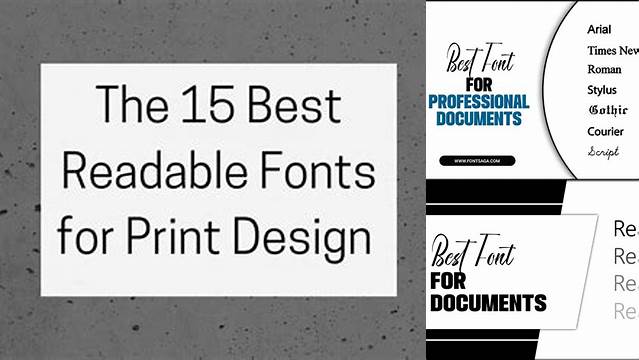
Top Fonts For Word Documents: Enhance Readability & Style
Choosing the right font for your Word documents is crucial for readability and overall impact. Let's dive into the best fonts to make your documents shine!
1. Best Overall Fonts for Word
When it comes to selecting the best fonts for Word, a few consistently stand out due to their readability, versatility, and professional appearance. These fonts are suitable for a wide range of documents, from formal reports to casual letters. Let's explore some top contenders. First, we have Times New Roman, a classic serif font that has been a standard for decades. Its clear, legible letterforms make it ideal for body text, ensuring readers can easily follow the content. Next up is Arial, a widely used sans-serif font known for its clean and modern look. Arial is a great choice for headings and short blocks of text, providing a crisp and contemporary feel. Then there's Calibri, which replaced Times New Roman as the default font in Microsoft Word. Calibri is another excellent sans-serif option, offering a softer and more rounded appearance that many find appealing. Each of these fonts contributes to creating documents that are not only readable but also visually engaging and professional. They serve as a reliable foundation for various writing needs, ensuring your message is conveyed effectively and stylishly. Remember, the best fonts for Word are the ones that enhance your document's readability and overall aesthetic, so choose wisely!
2. Professional Fonts for Resumes
Selecting the best fonts for Word documents, especially resumes, is critical because your resume is often the first impression you make on potential employers. A well-chosen font can convey professionalism, attention to detail, and clarity. For a resume, readability is paramount; recruiters and hiring managers should be able to quickly scan your qualifications without straining their eyes. Some top professional fonts for resumes include Garamond, known for its elegant and classic appearance, making it a sophisticated choice. Another strong contender is Helvetica, a clean and minimalist sans-serif font that exudes modernity and simplicity. Additionally, consider Cambria, a serif font designed specifically for on-screen reading, offering excellent clarity and a polished look. Avoid overly decorative or unconventional fonts that can distract from the content. Consistency is also key; stick to one or two fonts throughout your resume to maintain a cohesive and professional aesthetic. The right font choice can significantly enhance the overall impact of your resume, helping you stand out in a competitive job market. Remember, the best fonts for Word for a resume are those that combine readability with a touch of professional elegance.
3. Modern Fonts for Business Documents
In the realm of business, the best fonts for Word documents often lean towards modern aesthetics to convey innovation and forward-thinking. Modern fonts can make your reports, presentations, and memos look current and professional, capturing the attention of your audience. One standout modern font is Open Sans, a humanist sans-serif font designed with readability in mind. Its clean lines and open forms make it easy to read both on screen and in print. Another excellent choice is Lato, a stylish sans-serif font that combines warmth and clarity. Lato's semi-rounded details give it a friendly yet professional feel, perfect for business communications. Additionally, consider Montserrat, a geometric sans-serif font that exudes confidence and modernity. Its strong, clean lines make it ideal for headings and titles. When selecting a modern font for business documents, it's important to strike a balance between style and readability. Avoid fonts that are too trendy or difficult to read, as they can detract from your message. Instead, opt for fonts that enhance clarity and convey a sense of professionalism and innovation. Choosing the best fonts for Word in a business context means selecting typefaces that reflect your company's brand and values while ensuring your documents are easily accessible and visually appealing.
4. Formal Fonts for Legal Documents
When creating legal documents, selecting the best fonts for Word is crucial for maintaining professionalism, clarity, and authority. The fonts you choose should convey seriousness and trustworthiness, ensuring that the document is taken seriously. Classic serif fonts are generally preferred in the legal field due to their traditional and formal appearance. Times New Roman remains a popular choice for its readability and widespread recognition. Another excellent option is Garamond, known for its elegant and refined letterforms, which lend a sense of sophistication to legal texts. Additionally, consider Book Antiqua, a serif font that offers a slightly softer and more approachable feel while still maintaining a formal tone. When selecting fonts for legal documents, avoid using overly stylized or decorative fonts, as they can appear unprofessional and undermine the document's credibility. Consistency is also essential; use the same font throughout the entire document to maintain a cohesive and polished appearance. The goal is to choose fonts that enhance readability and convey a sense of authority, ensuring that your legal documents are clear, professional, and taken seriously. Therefore, when considering the best fonts for Word in a legal setting, prioritize classic serif fonts that have a proven track record of reliability and readability.
5. Readable Fonts for Long Documents
For lengthy documents, selecting the best fonts for Word is paramount to ensure readers can comfortably navigate through the text without experiencing eye strain. Readability is key, as readers need to maintain focus and comprehension over extended periods. Several fonts excel in their ability to enhance readability in long documents. One standout is Georgia, a serif font specifically designed for on-screen reading. Its generous letter spacing and clear letterforms make it easy on the eyes, even after prolonged reading. Another excellent choice is Palatino, a humanist serif font known for its elegant appearance and excellent readability. Palatino's well-balanced letterforms and subtle serifs make it a pleasure to read, reducing fatigue. Additionally, consider Verdana, a sans-serif font designed with readability in mind. Its wide letterforms and ample spacing make it easy to read, especially in smaller sizes. When choosing fonts for long documents, avoid using overly condensed or stylized fonts, as they can be difficult to read and cause eye strain. Instead, opt for fonts with clear letterforms, generous spacing, and a balanced appearance. By prioritizing readability, you can ensure that your long documents are accessible and engaging for your audience. Remember, the best fonts for Word in this context are those that prioritize reader comfort and comprehension.
6. Sans-Serif Fonts for Digital Reading
When it comes to digital reading, choosing the best fonts for Word documents often means opting for sans-serif fonts. These fonts typically have a cleaner, more modern look that translates well to screens, enhancing readability and reducing eye strain. Sans-serif fonts lack the small decorative strokes (serifs) found in traditional fonts, making them appear less cluttered and easier to read on digital devices. One popular sans-serif font for digital reading is Arial, known for its simplicity and clarity. Arial's clean lines and straightforward letterforms make it a versatile choice for various types of content. Another excellent option is Helvetica, a widely used sans-serif font with a minimalist design. Helvetica's neutral appearance and excellent readability make it a favorite among designers and readers alike. Additionally, consider Open Sans, a humanist sans-serif font designed specifically for on-screen reading. Its open forms and clean lines make it easy on the eyes, even after extended reading sessions. When selecting sans-serif fonts for digital reading, it's important to consider factors such as screen resolution, font size, and contrast. Opt for fonts that are clear, legible, and easy to read on various devices. By choosing the best fonts for Word tailored to digital reading, you can create documents that are visually appealing and highly readable.
7. Serif Fonts for Print Documents
For print documents, serif fonts often stand out as the best fonts for Word because they enhance readability and provide a traditional, polished look. Serif fonts have small decorative strokes (serifs) at the end of each letter, which can help guide the eye and improve reading flow, especially in printed materials. One classic serif font for print documents is Times New Roman, known for its timeless appearance and excellent readability. Times New Roman's well-defined serifs and balanced letterforms make it a reliable choice for various types of printed content. Another excellent option is Garamond, a sophisticated serif font with elegant letterforms. Garamond's refined appearance and excellent readability make it a favorite among publishers and designers. Additionally, consider Georgia, a serif font specifically designed for on-screen reading but also performs well in print. Its generous letter spacing and clear letterforms make it easy on the eyes, even in smaller sizes. When selecting serif fonts for print documents, it's important to consider factors such as paper quality, font size, and printing resolution. Opt for fonts that are clear, legible, and visually appealing in printed form. The best fonts for Word in this context are those that combine readability with a touch of elegance and professionalism, ensuring your print documents make a strong impression.
8. Best Font Size for Word Documents
Choosing the best fonts for Word also involves considering the optimal font size to ensure readability and comfort. The right font size can make a significant difference in how easily your document can be read and understood. For most standard documents, a font size of 12 points is generally recommended. This size strikes a good balance between readability and space efficiency, making it suitable for a wide range of content. However, depending on the font you choose, you may need to adjust the size slightly. For example, some fonts may appear larger or smaller than others at the same point size. When selecting font sizes, it's also important to consider your target audience. If you're writing for an audience with visual impairments, you may need to increase the font size to improve accessibility. Additionally, consider the overall layout of your document. If you have a lot of text, you may want to use a slightly smaller font size to fit more content on each page. Conversely, if you have a lot of white space, you may want to use a larger font size to fill the space and improve readability. The best fonts for Word, when paired with the right size, create a comfortable reading experience for your audience.
9. Fonts for Academic Papers
When it comes to academic papers, selecting the best fonts for Word is crucial for maintaining professionalism and adhering to academic standards. Certain fonts are preferred in academic settings due to their readability, clarity, and formal appearance. Times New Roman is often considered the standard font for academic papers. Its classic serif design and excellent readability make it a reliable choice for body text. Another popular option is Garamond, known for its elegant and refined letterforms. Garamond's sophisticated appearance lends a sense of professionalism to academic writing. Additionally, consider Calibri, a sans-serif font that has become increasingly popular in academic circles. Calibri's clean and modern look makes it a versatile choice for headings and titles. When selecting fonts for academic papers, it's important to adhere to the specific guidelines provided by your institution or publication. Some may have specific font requirements, while others may allow for more flexibility. Consistency is also key; use the same font throughout your paper to maintain a cohesive and polished appearance. By choosing the best fonts for Word for academic papers, you can ensure that your work is presented in a professional and readable manner, enhancing its credibility and impact.
10. Creative Fonts for Word Documents
If you're looking to add a touch of creativity to your Word documents, choosing the best fonts for Word can make all the difference. Creative fonts can help you express your personality, stand out from the crowd, and add visual interest to your documents. However, it's important to use creative fonts sparingly and judiciously, as they can also detract from readability if overused. One popular creative font is Brush Script MT, known for its flowing, handwritten style. Brush Script MT can add a personal and informal touch to invitations, cards, and other documents. Another interesting option is Comic Sans MS, a whimsical sans-serif font that is often used for informal communications. While Comic Sans MS is often criticized for its overuse, it can be effective in certain contexts. Additionally, consider Impact, a bold and attention-grabbing sans-serif font that is ideal for headlines and titles. When selecting creative fonts for Word documents, it's important to consider your audience and the purpose of your document. Avoid using fonts that are difficult to read or that clash with the overall tone of your content. The best fonts for Word in this context are those that enhance your document's visual appeal without sacrificing readability or professionalism.
11. Combining Fonts Effectively
Part of selecting the best fonts for Word involves knowing how to combine them effectively. Combining fonts well can elevate your document's design and readability, while poor combinations can create a cluttered or unprofessional look. A general rule of thumb is to choose one font for headings and another for body text. This creates visual hierarchy and helps readers navigate the document more easily. When combining fonts, it's important to consider their contrast and compatibility. Choose fonts that complement each other in terms of style, weight, and spacing. For example, you might pair a serif font like Garamond with a sans-serif font like Arial. Alternatively, you could pair two sans-serif fonts with different weights and styles. Avoid combining fonts that are too similar, as this can create a monotonous look. Also, avoid combining fonts that clash or compete with each other, as this can be distracting and unprofessional. The best fonts for Word are those that work together harmoniously to create a visually appealing and readable document.
12. Fonts for Different Types of Documents
The best fonts for Word can vary depending on the type of document you're creating. Different documents have different purposes and require different font styles to effectively convey their message. For example, formal documents like business reports and legal contracts typically require professional and conservative fonts. Times New Roman, Arial, and Garamond are all good choices for these types of documents. On the other hand, creative documents like brochures and newsletters may benefit from more expressive and decorative fonts. Brush Script MT, Comic Sans MS, and Impact can add visual interest to these types of documents. Academic papers and essays typically require fonts that are clear, readable, and adhere to academic standards. Times New Roman, Garamond, and Calibri are all popular choices for academic writing. When selecting fonts for different types of documents, it's important to consider your audience, the purpose of your document, and the overall tone you want to convey. The best fonts for Word are those that are appropriate for the specific context of your document.
13. Default Fonts in Microsoft Word
Understanding the default fonts in Microsoft Word is crucial for selecting the best fonts for Word documents. The default font is the typeface that Word automatically uses when you start a new document. Over the years, Microsoft has changed the default font several times, reflecting evolving design trends and user preferences. In older versions of Word, the default font was Times New Roman, a classic serif font known for its readability and formal appearance. Later, Microsoft switched to Arial, a clean and modern sans-serif font. More recently, Microsoft has adopted Calibri as the default font in Word. Calibri is a sans-serif font with a softer, more rounded appearance than Arial. While the default font can be a convenient starting point, it's important to choose fonts that are appropriate for your specific document and audience. You can easily change the default font in Word by going to the Format menu and selecting Font. From there, you can choose any font installed on your computer and set it as the new default. The best fonts for Word are not necessarily the default ones, but those that best suit the purpose and style of your document.
14. How to Change Fonts in Word
Knowing how to change fonts in Word is essential for selecting the best fonts for Word documents and customizing their appearance. Microsoft Word offers several ways to change fonts, allowing you to easily adjust the typeface, size, and style of your text. One way to change fonts is to use the Font menu on the Home tab. Simply select the text you want to change, then click on the dropdown menu in the Font section and choose a new font from the list. You can also change the font size, style (bold, italic, underline), and color using the options in the Font menu. Another way to change fonts is to use the Format menu. Select the text you want to change, then click on the Format menu and select Font. This will open the Font dialog box, where you can choose a new font, size, style, and other options. You can also use the Format Painter tool to copy the formatting from one section of text to another. Simply select the text with the formatting you want to copy, click on the Format Painter button, then select the text you want to apply the formatting to. By mastering these techniques, you can easily experiment with different fonts and find the best fonts for Word to enhance your documents.
15. Downloading and Installing New Fonts
To truly expand your font options and find the best fonts for Word, you'll often need to download and install new fonts. Fortunately, this process is relatively straightforward on most operating systems. There are numerous websites where you can download fonts, both free and paid. Some popular font websites include Google Fonts, Adobe Fonts, and Font Squirrel. When downloading fonts, make sure to choose a reputable website to avoid downloading malware or viruses. Once you've downloaded a font, you'll need to install it on your computer. On Windows, you can install a font by right-clicking on the font file and selecting Install. Alternatively, you can copy the font file to the Fonts folder in the Windows directory. On macOS, you can install a font by double-clicking on the font file and selecting Install Font. Once the font is installed, it will be available in Microsoft Word and other applications. Keep in mind that some fonts may have licensing restrictions, so be sure to read the terms of use before using them in your documents. By downloading and installing new fonts, you can significantly expand your font library and find the best fonts for Word to create visually stunning documents.
16. Using Web Fonts in Word Documents
While Microsoft Word primarily uses fonts installed on your computer, you can also use web fonts to enhance your documents and find the best fonts for Word. Web fonts are fonts that are hosted online and can be accessed by your web browser or applications like Word. To use web fonts in Word, you'll typically need to embed them in your document. This ensures that the fonts will display correctly even if the recipient doesn't have the fonts installed on their computer. One way to embed web fonts in Word is to use the Adobe Fonts service. If you have an Adobe Creative Cloud subscription, you can access a wide range of web fonts and easily embed them in your Word documents. Another way to use web fonts in Word is to use the Google Fonts service. Google Fonts is a free service that offers a wide selection of open-source web fonts. You can download the fonts and install them on your computer, or you can use the Google Fonts API to embed them in your documents. Keep in mind that embedding web fonts can increase the file size of your documents, so it's important to use them sparingly and only when necessary. The best fonts for Word can sometimes be found among the vast selection of web fonts available online.
17. Font Licensing and Copyright
When selecting the best fonts for Word, it's crucial to understand font licensing and copyright. Fonts are intellectual property, and their use is governed by licensing agreements. These agreements dictate how you can use the font, whether it's for personal or commercial purposes, and whether you can embed it in documents or distribute it to others. Some fonts are free to use for any purpose, while others require a license fee for commercial use. It's important to read the licensing agreement carefully before using a font to ensure that you're complying with the terms. Using a font without the proper license can result in legal consequences, including fines and lawsuits. There are several types of font licenses, including desktop licenses, web licenses, and embedding licenses. A desktop license allows you to install the font on your computer and use it in applications like Word. A web license allows you to use the font on a website. An embedding license allows you to embed the font in documents or applications so that it displays correctly on other devices. The best fonts for Word are those that you have the proper license to use, ensuring you're respecting the rights of the font designer.
18. Fonts for Accessibility
Ensuring accessibility is a key consideration when choosing the best fonts for Word, especially when creating documents that will be read by a diverse audience, including those with visual impairments. Accessible fonts are designed to be easy to read for people with low vision, dyslexia, and other visual challenges. Some characteristics of accessible fonts include clear and distinct letterforms, generous spacing, and high contrast between the text and background. Several fonts are specifically designed for accessibility, including Open Dyslexic, Atkinson Hyperlegible, and Lexend. Open Dyslexic is a font designed to improve readability for people with dyslexia. It features uniquely shaped letterforms that are easy to distinguish from each other. Atkinson Hyperlegible is a font designed by the Braille Institute to improve readability for people with low vision. It features wide letterforms and generous spacing. Lexend is a font family designed to improve reading speed and comprehension. It features variable width letterforms and adjustable spacing. When selecting fonts for accessibility, it's important to consider the needs of your target audience and choose fonts that are easy to read for everyone. The best fonts for Word are those that prioritize accessibility and inclusivity.
19. Fonts for Different Languages
When creating Word documents in different languages, selecting the best fonts for Word can be more complex. Not all fonts support all languages, and some fonts may render certain characters incorrectly. It's important to choose fonts that are specifically designed for the language you're using to ensure that your text displays correctly and is easy to read. For languages that use the Latin alphabet, such as English, Spanish, and French, most standard fonts will work well. However, for languages that use non-Latin alphabets, such as Chinese, Japanese, and Korean, you'll need to choose fonts that support those specific characters. There are many fonts available that support multiple languages, including Unicode fonts, which are designed to support a wide range of characters from different languages. Some popular Unicode fonts include Arial Unicode MS, Times New Roman Unicode, and Microsoft YaHei. When selecting fonts for different languages, it's important to test the fonts to ensure that they display all characters correctly. You can do this by typing in different characters and symbols and verifying that they appear as expected. The best fonts for Word in multilingual contexts are those that provide comprehensive language support and ensure accurate rendering of all characters.
20. Script Fonts for Word Documents
For certain types of Word documents, incorporating script fonts can add a touch of elegance and personality. Choosing the best fonts for Word that fall into the script category requires careful consideration, as these fonts can vary widely in readability and formality. Script fonts mimic handwriting, and while they can be beautiful, they are generally best used sparingly, such as for headings, invitations, or decorative elements. One popular script font is Brush Script MT, which offers a flowing, handwritten style that is suitable for informal invitations and announcements. Another option is Edwardian Script ITC, which is more formal and ornate, making it ideal for certificates or elegant invitations. However, it's crucial to ensure that the script font you choose is legible, especially for longer text passages. Avoid using overly decorative or intricate script fonts that can strain the reader's eyes. When using script fonts, it's often best to pair them with a more straightforward and readable font for the main body of your document. This combination can create a visually appealing and balanced design. In summary, while script fonts can add flair to your Word documents, selecting the best fonts for Word in this category involves prioritizing readability and using them judiciously to enhance rather than detract from the overall message.
21. Monospace Fonts for Coding in Word
When including code snippets in your Word documents, using monospace fonts is essential for maintaining readability and clarity. The best fonts for Word for coding are monospace fonts, where each character occupies the same horizontal space, ensuring proper alignment and visual distinction of code elements. Courier New is a classic monospace font that is widely available and commonly used for displaying code. Its simple and clear design makes it easy to read, even in small sizes. Another popular choice is Consolas, a monospace font designed specifically for on-screen reading. Consolas features improved clarity and readability compared to Courier New, making it a preferred option for many developers. Additionally, Menlo is a modern monospace font that is often used in coding environments. Menlo offers a clean and stylish appearance while maintaining excellent readability. When selecting a monospace font for coding in Word, it's important to choose one that is clear, legible, and easy on the eyes. Avoid using overly stylized or decorative monospace fonts, as they can be distracting and difficult to read. The best fonts for Word for coding are those that prioritize readability and ensure that your code is presented in a professional and accessible manner.
22. Using Font Themes in Word
Leveraging font themes in Microsoft Word is a convenient way to ensure consistency and visual harmony across your documents. Understanding how to utilize this feature is key to selecting the best fonts for Word in a cohesive manner. Font themes are pre-defined sets of fonts that include a heading font and a body font, designed to complement each other. Word offers a variety of built-in font themes, allowing you to quickly change the overall look and feel of your document with just a few clicks. To apply a font theme, go to the Design tab in Word and select the Fonts dropdown menu. Here, you can choose from a list of pre-defined font themes or customize your own. When customizing a font theme, you can select different fonts for the headings and body text, as well as adjust their sizes and styles. Using font themes can save you time and effort by ensuring that your fonts are consistent throughout your document. It also helps to create a professional and polished look. By experimenting with different font themes, you can find the best fonts for Word that align with your document's purpose and style. This feature streamlines the process of font selection and ensures a visually appealing final product.
23. Customizing Default Fonts in Word
Customizing the default fonts in Word allows you to personalize your document creation process and ensures that you always start with your preferred typography. This customization is a powerful tool when aiming for the best fonts for Word to match your specific needs. The default font is the font that Word automatically uses when you create a new document. By changing the default font, you can save time and effort by avoiding the need to manually change the font every time you start a new project. To customize the default font in Word, go to the Format menu and select Font. In the Font dialog box, choose the font, size, and style that you want to use as the default. Then, click on the Set As Default button. Word will ask you whether you want to apply the changes to the current document only or to all new documents based on the Normal template. Choose the latter option to make the changes permanent. Customizing the default font is a great way to streamline your workflow and ensure that your documents always reflect your personal preferences. By carefully selecting your default fonts, you can ensure that you're always starting with the best fonts for Word for your specific projects, enhancing both efficiency and visual consistency.
24. Font Pairing for Word Documents
Effective font pairing is an art that can significantly enhance the visual appeal and readability of your Word documents. Mastering this skill is crucial when aiming for the best fonts for Word combinations that complement each other. Font pairing involves selecting two or more fonts that work well together to create a harmonious and balanced design. A common approach is to pair a serif font for body text with a sans-serif font for headings, or vice versa. This creates visual contrast and helps to distinguish between different sections of your document. When pairing fonts, consider their style, weight, and spacing. Choose fonts that complement each other in terms of these characteristics. For example, you might pair a classic serif font like Garamond with a clean sans-serif font like Open Sans. Alternatively, you could pair two sans-serif fonts with different weights and styles to create visual interest. Avoid pairing fonts that are too similar or that clash with each other. The goal is to create a harmonious and balanced design that enhances readability and visual appeal. By carefully selecting and pairing fonts, you can elevate the overall quality of your Word documents and ensure that they communicate your message effectively. The best fonts for Word, when paired thoughtfully, can transform a simple document into a visually engaging piece.
25. Fonts for Emailing Word Documents
When preparing Word documents for emailing, it's essential to consider how the fonts will render on different devices and email clients. This consideration is vital for selecting the best fonts for Word that ensure consistent readability across various platforms. Not all fonts are universally supported, and some may appear differently or not at all depending on the recipient's system. To ensure that your document looks as intended, it's best to stick to commonly used and widely supported fonts such as Arial, Times New Roman, Calibri, and Verdana. These fonts are generally available on most computers and are less likely to cause display issues. If you use more obscure or custom fonts, there's a risk that the recipient will see a different font or a generic substitute, which can detract from the document's intended appearance. Another option is to embed the fonts in your Word document, which ensures that the fonts will display correctly regardless of whether the recipient has them installed on their system. However, embedding fonts can increase the file size of your document, so it's important to weigh the benefits against the potential drawbacks. The best fonts for Word for emailing are those that balance visual appeal with universal compatibility, ensuring that your message is conveyed effectively to all recipients.
26. Troubleshooting Font Issues in Word
Encountering font issues in Word can be frustrating, but understanding how to troubleshoot these problems can save you time and effort. Resolving these issues is crucial for maintaining the visual integrity of your documents and ensuring you're using the best fonts for Word effectively. Common font issues include fonts not displaying correctly, fonts appearing as boxes or symbols, and fonts changing unexpectedly. One common cause of font issues is missing fonts. If you open a document that uses fonts that are not installed on your computer, Word will substitute those fonts with other fonts. To fix this, you'll need to install the missing fonts on your system. Another common cause of font issues is font corruption. If a font file becomes corrupted, it may not display correctly in Word. To fix this, you can try reinstalling the font or downloading a fresh copy from a reputable source. Sometimes, font issues can be caused by compatibility problems between Word and certain fonts. If you're experiencing problems with a particular font, try using a different font to see if that resolves the issue. The best fonts for Word are useless if they don't display correctly, so troubleshooting font issues is a necessary skill for any Word user.
27. Font Management Tools for Word
Effectively managing your fonts is essential for maintaining a clean and organized font library and selecting the best fonts for Word efficiently. Font management tools can help you organize, activate, and deactivate fonts, making it easier to find the fonts you need and avoid font-related problems. There are several font management tools available for both Windows and macOS, including FontExplorer X Pro, NexusFont, and RightFont. These tools allow you to preview fonts, create font sets, and activate or deactivate fonts as needed. Using a font management tool can help you avoid cluttering your system with too many fonts, which can slow down your computer and make it difficult to find the fonts you need. It can also help you prevent font conflicts and ensure that your fonts display correctly in Word and other applications. By investing in a good font management tool, you can streamline your font workflow and make it easier to select the best fonts for Word for your projects, enhancing both productivity and visual consistency.
28. The Psychology of Fonts
Understanding the psychology of fonts can significantly enhance your ability to choose the best fonts for Word and convey the intended message effectively. Fonts have a profound impact on how readers perceive your content, influencing their emotions and attitudes. For example, serif fonts like Times New Roman and Garamond are often associated with tradition, authority, and formality. They convey a sense of trustworthiness and are often used in academic papers and legal documents. Sans-serif fonts like Arial and Helvetica, on the other hand, are typically associated with modernity, simplicity, and clarity. They project a clean and contemporary image and are often used in business documents and websites. Script fonts can evoke feelings of elegance, creativity, and personalization, making them suitable for invitations and decorative elements. However, it's important to use script fonts sparingly, as they can be difficult to read in large blocks of text. By considering the psychological effects of different fonts, you can make more informed decisions about which fonts to use in your Word documents. The best fonts for Word are those that align with your message and help you connect with your audience on an emotional level.
29. Trends in Typography
Staying abreast of current trends in typography can help you keep your Word documents looking fresh and modern. Keeping up with trends helps make sure you're selecting the best fonts for Word in the context of contemporary design. Typography trends are constantly evolving, reflecting changes in design aesthetics and technology. Some current trends in typography include the use of bold and oversized fonts, geometric fonts, and variable fonts. Bold and oversized fonts are often used in headlines and titles to grab attention and create a strong visual impact. Geometric fonts, characterized by their clean lines and precise shapes, are popular for their minimalist and modern look. Variable fonts are a relatively new technology that allows for greater flexibility and customization in font design. With variable fonts, you can adjust various parameters such as weight, width, and slant to create a wide range of variations from a single font file. By incorporating these trends into your Word documents, you can create a visually appealing and contemporary design. However, it's important to use trends judiciously and avoid overusing them. The best fonts for Word are those that balance current trends with readability and timelessness.
30. Resources for Font Inspiration
Finding inspiration for font choices is a crucial step in selecting the best fonts for Word to elevate your documents. Fortunately, there are numerous resources available to help you discover new and exciting fonts. Online platforms like Behance, Dribbble, and Pinterest are excellent sources of visual inspiration, showcasing a wide range of design projects that feature creative typography. These platforms allow you to explore different font combinations and see how they are used in real-world applications. Websites like Google Fonts and Adobe Fonts offer extensive libraries of fonts that you can browse and download. These websites also provide helpful information about font characteristics, licensing, and usage recommendations. Typography blogs and magazines are another valuable resource for staying up-to-date on the latest trends and best practices in font design. By exploring these various resources, you can expand your knowledge of typography and discover the best fonts for Word to bring your documents to life.